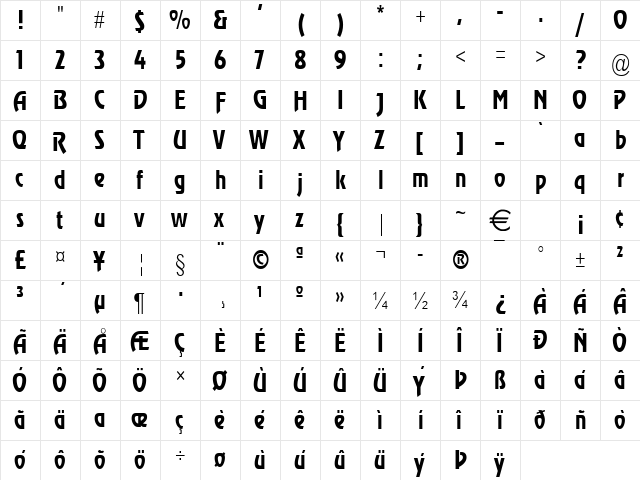
ReviewCondensedNarrow Normal
Design Context for ReviewCondensedNarrow Typeface
ReviewCondensedNarrow is a composed and adaptable typeface that performs quietly and consistently across a wide range of design contexts. The condensed width makes it efficient for tight spaces without sacrificing legibility.